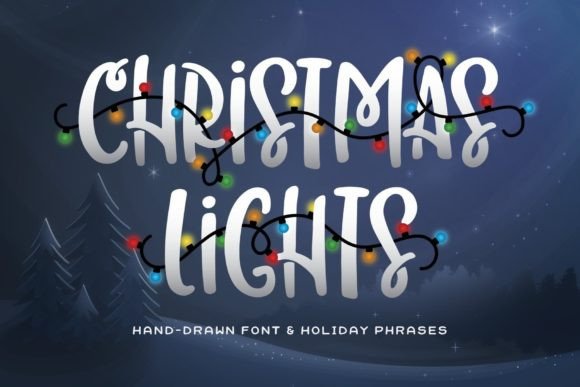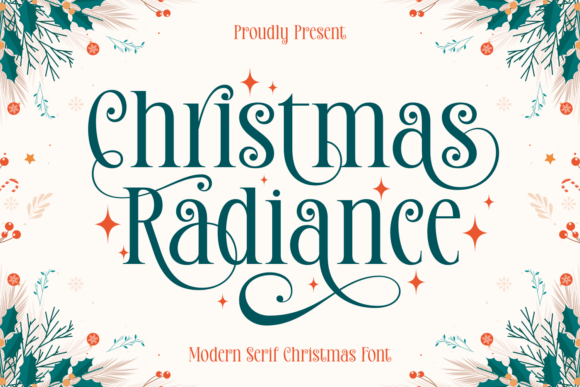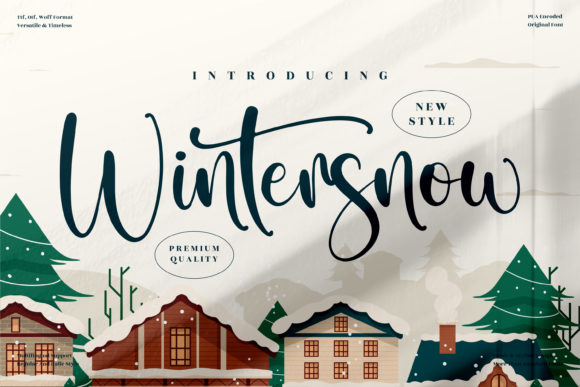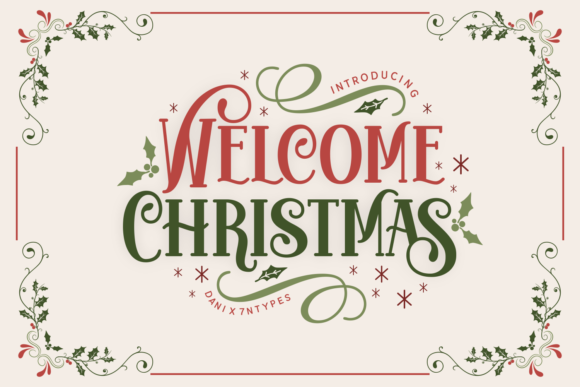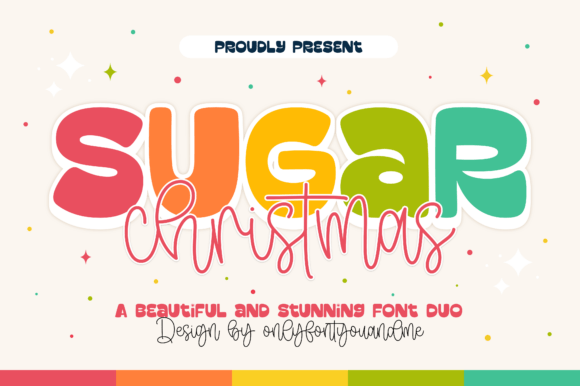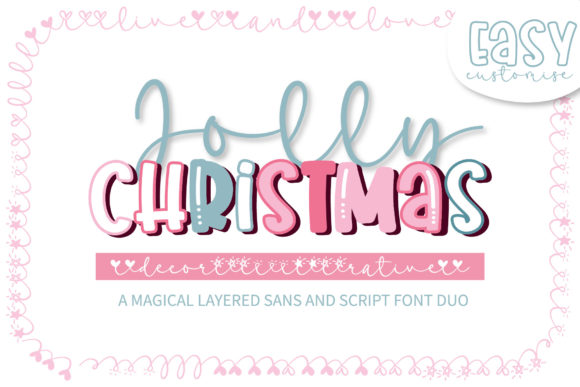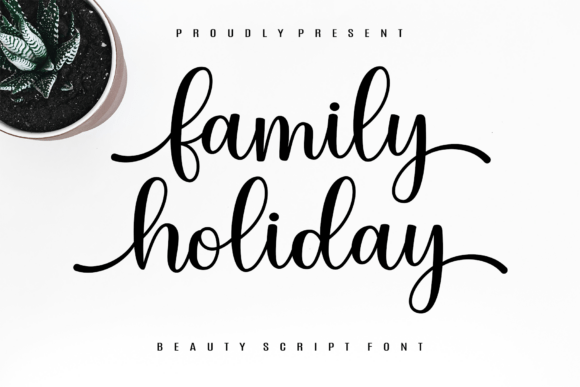
There's something magical about the right font that instantly makes you feel the warmth of a crackling fireplace, the stillness of fresh snow, and the coziness of the season all at once.
This collection of best winter fonts is perfect for designers, crafters, and creatives who want to capture that cold-weather charm in every project — from holiday cards and gift tags to seasonal branding, Cricut crafts, and festive social media graphics. From soft handwritten scripts and rustic serif styles to bold display fonts that feel straight out of a snowy storybook — these are the winter fonts you'll wish you had discovered sooner. ❄️🕯️
Fonts for Every
Winter Mood
A curated set of typefaces spanning holiday scripts, bold sports lettering, elegant serifs, and playful displays — organized by style so you can find the right fit fast.
Winter & Christmas
11 fontsFestive scripts and seasonal display fonts made for holiday cards, gift tags, seasonal packaging, and everything merry.
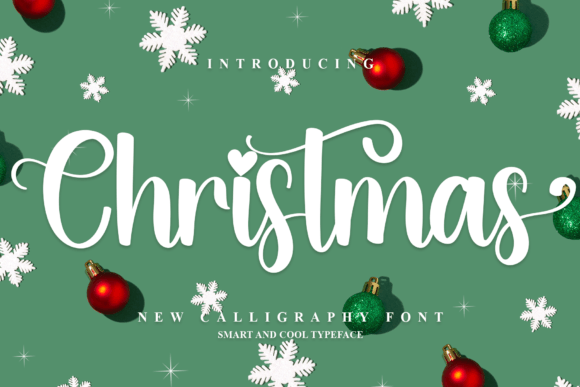
Christmas
Festive script with whimsical flair and PUA glyphs — perfect for holiday cards and gift tags.
Christmas Lights
Bold all-caps holiday font bundled with festive words decorated in stringed lights.
Christmas Radiance
Modern serif with elegant swashes and ornamental accents — luxurious feel for seasonal branding.
Wintersnow
Flowing handwritten script with a timeless, elegant style for creative winter projects.
Welcome Christmas
Joyful display font that adds instant festive energy to any holiday design.
Sugar Christmas Duo
Chunky rounded display paired with a bouncy script — a playful, candy-inspired holiday duo.
Jolly Christmas
Casual handwritten duo with a layered style — natural and versatile for seasonal projects.
Family Holiday
Beautifully crafted script with elegant flow — evokes warm, memorable holiday moments.
Snowlet
Playful handwritten font with smooth curves and cozy personality — great for seasonal packaging.
Rainy Winter (Single Line)
900+ glyph hairline font for foil quills, engraving, and Glowforge scoring projects.
School House
Festive decorative typeface with PUA glyphs — cheerful for gift tags and holiday stationery.
4 fontsAthletic lettering with bold retro character — built for jerseys, team logos, stadium posters, and sports merchandise.
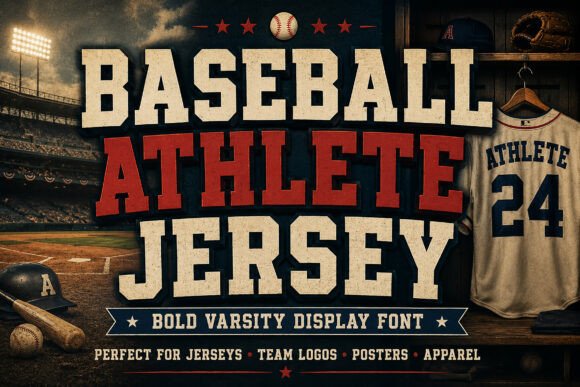
Baseball Athlete Jersey
Bold vintage varsity font with 3D shadow effect — ideal for jerseys, team logos, and stadium posters.
Varsity Spirit
Jersey
Bold geometric sports display inspired by classic baseball jerseys — commanding presence for logos and apparel.
USA Spirit
Patriotic color font with stars and stripes letterforms — great for Fourth of July and American-themed designs.
9 fontsFlowing calligraphy and casual handwriting styles for wedding invitations, branding, greeting cards, and social media.
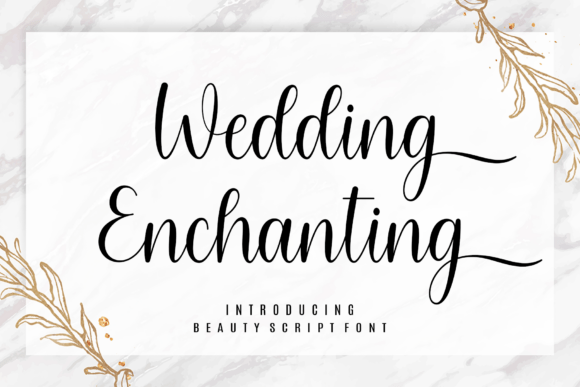
Wedding Enchanting
Sophisticated romantic script blending delicate elegance with timeless style for wedding stationery.
Barbie
Elegant flowing handwritten font with gorgeous alternates — contemporary yet classically calligraphic.
Baby Boho